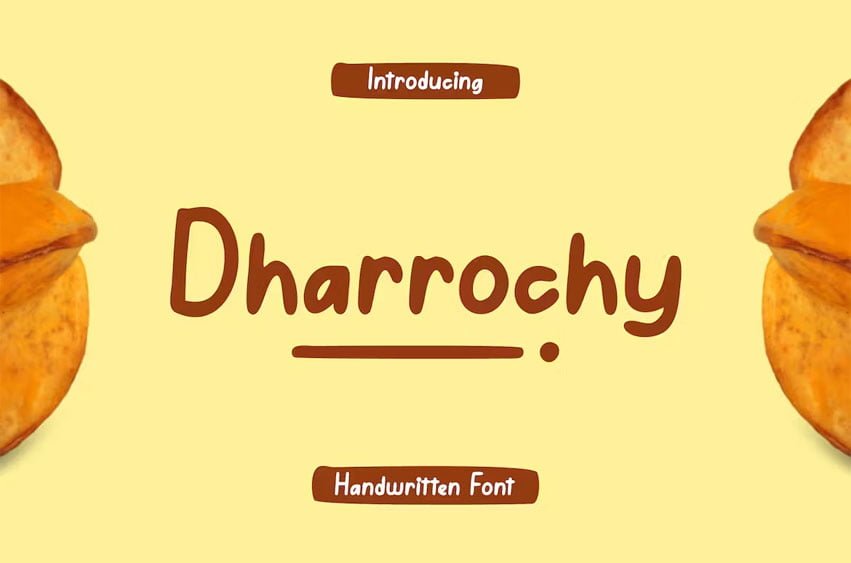
Dharrochy Font Handwritten Font. Modern Font is a simple and authentic display font. It fits in headlines, logos, posters, flyers, invitations, name cards, branding materials, print media, editorial layouts, and many more.